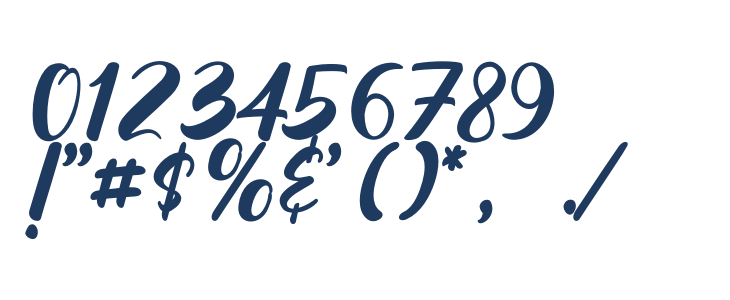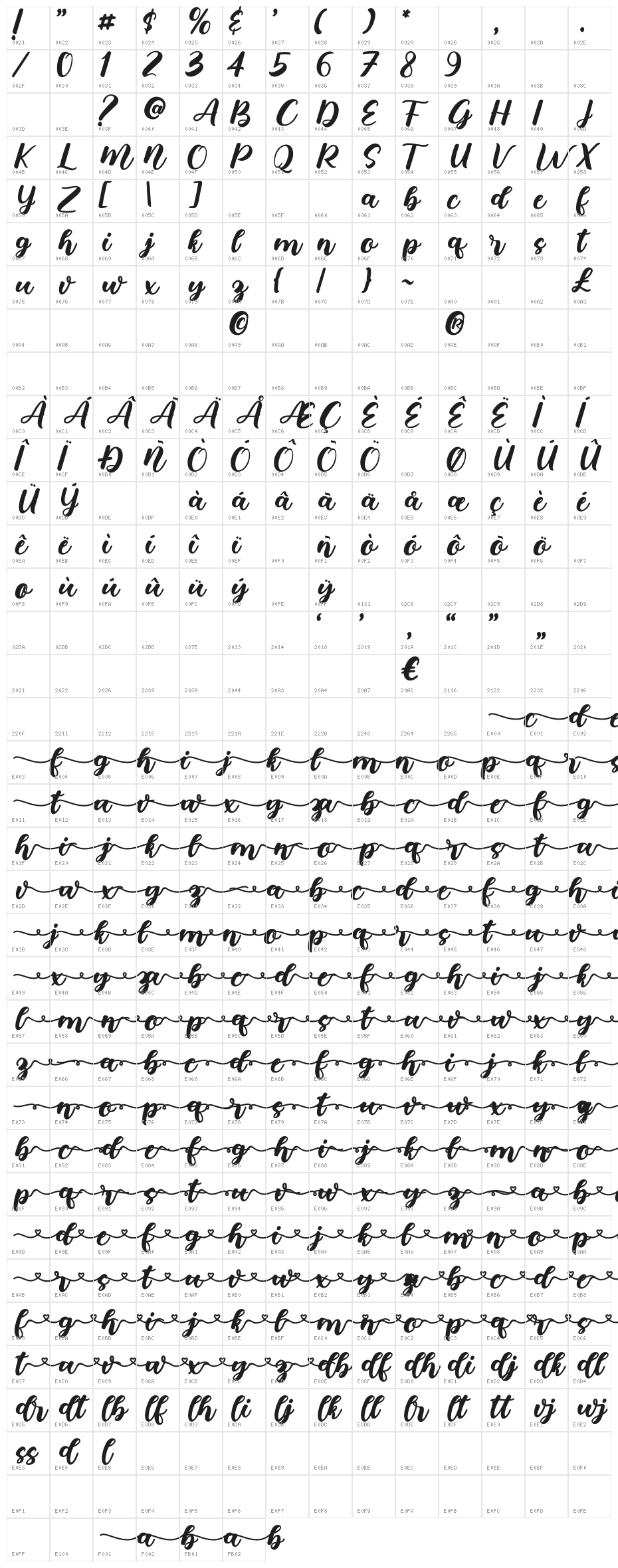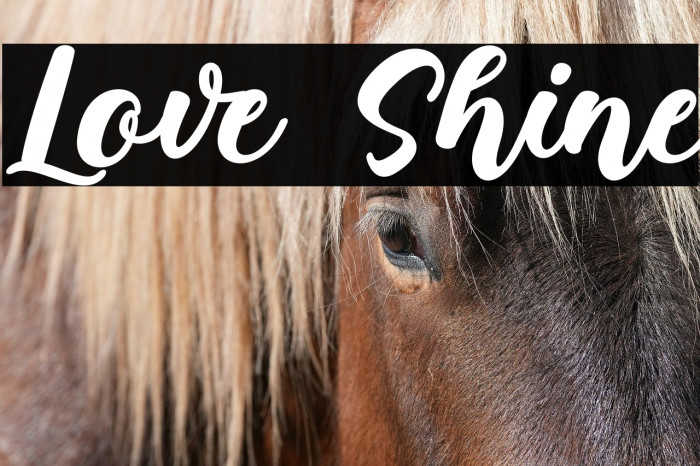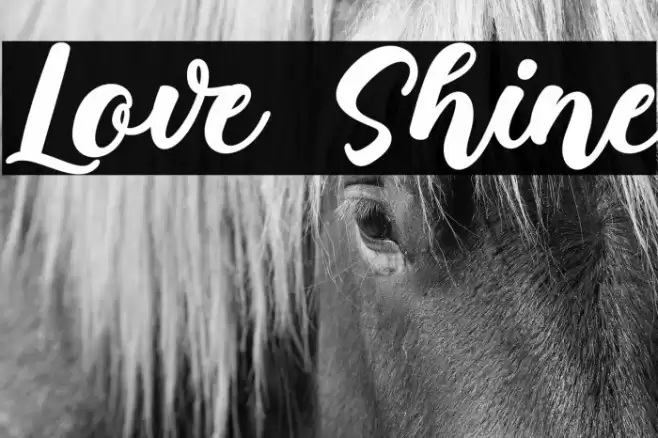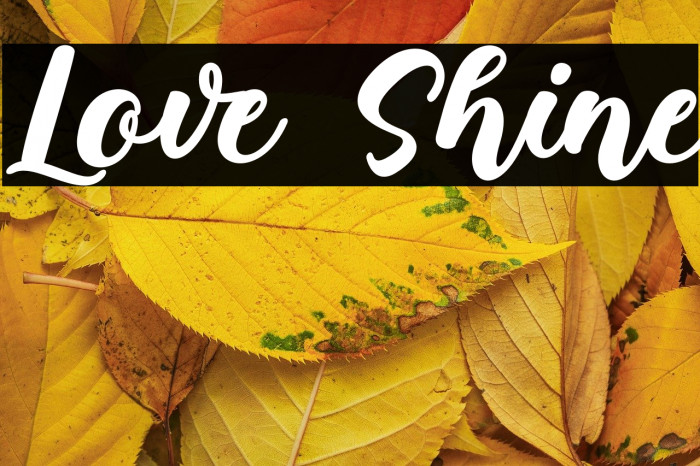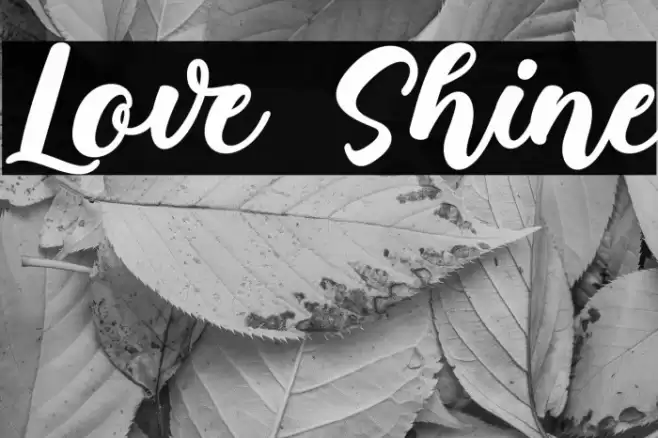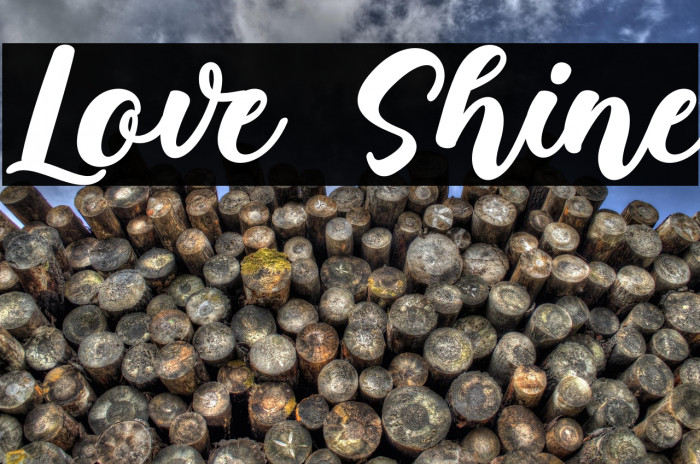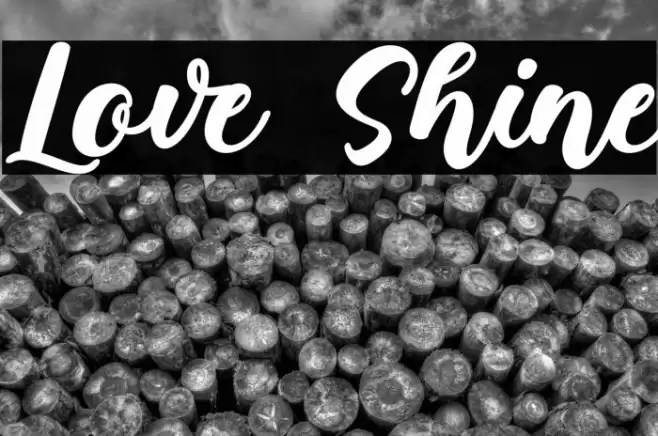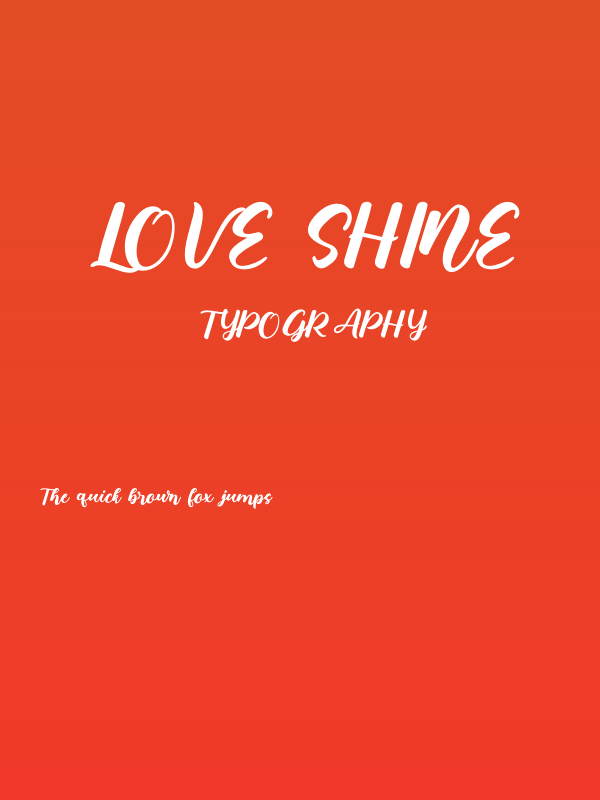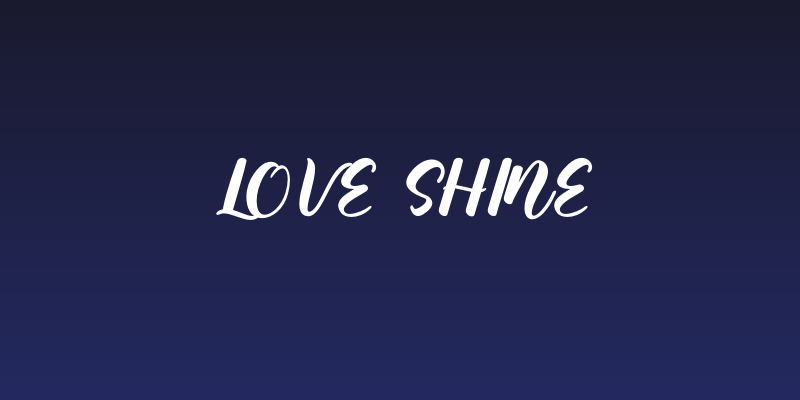
Love Shine Font
Love Shine Description
This font exudes a vibrant and playful energy, characterized by its bold and flowing script style. The letters are interconnected with smooth, sweeping curves that give it a sense of movement and fluidity. The uppercase letters are particularly striking, with dramatic flourishes that add a touch of elegance. The lowercase letters maintain a consistent style, ensuring readability while retaining the font's artistic flair. The numerals are equally dynamic, featuring similar curves and boldness. Special characters are well-integrated, matching the overall aesthetic. This font is perfect for projects that require a lively and engaging appearance.